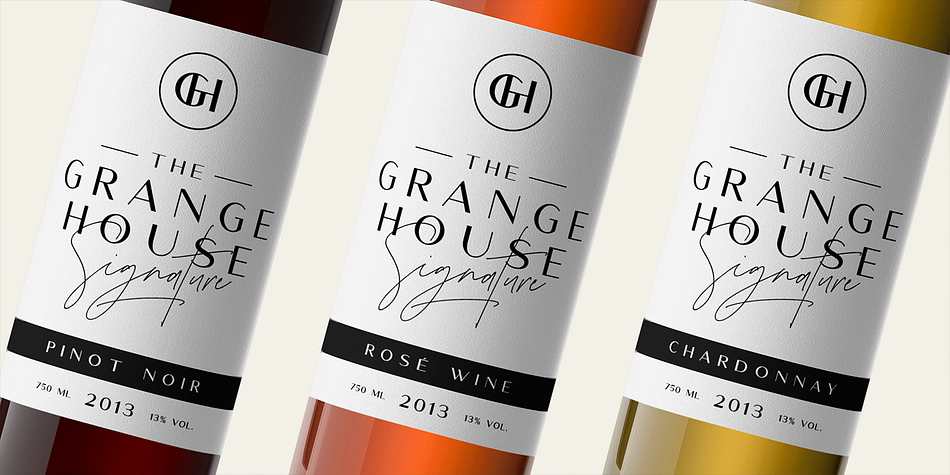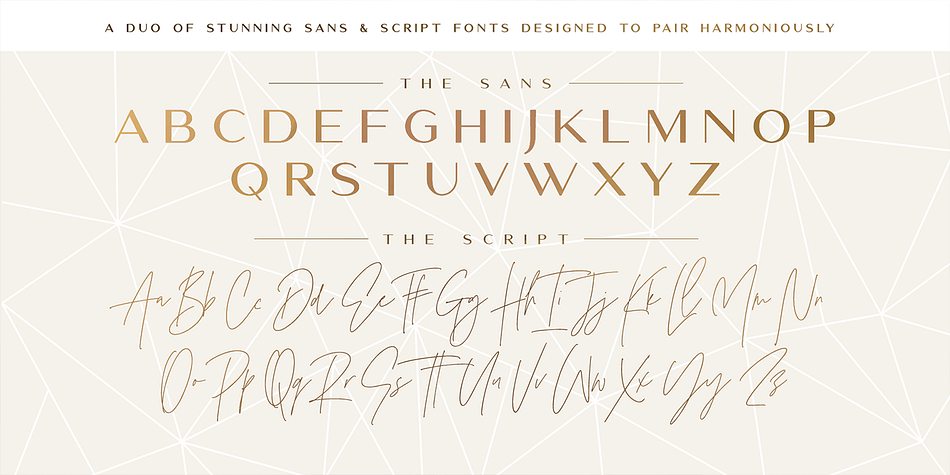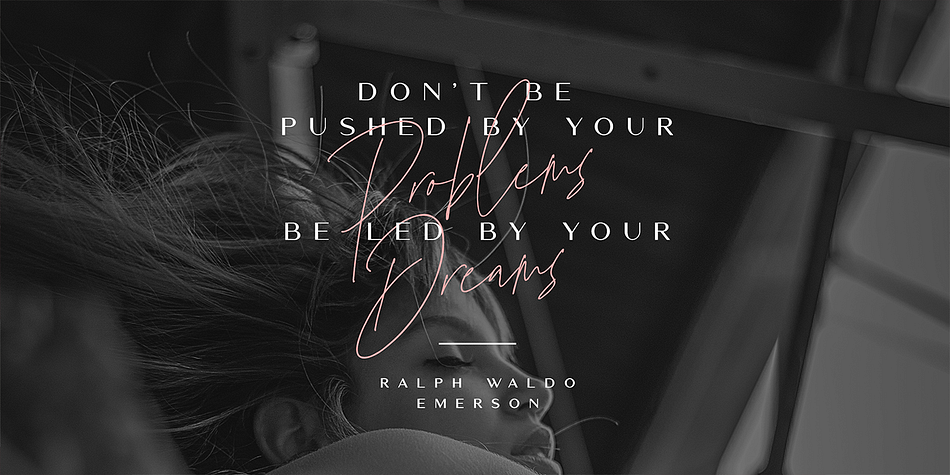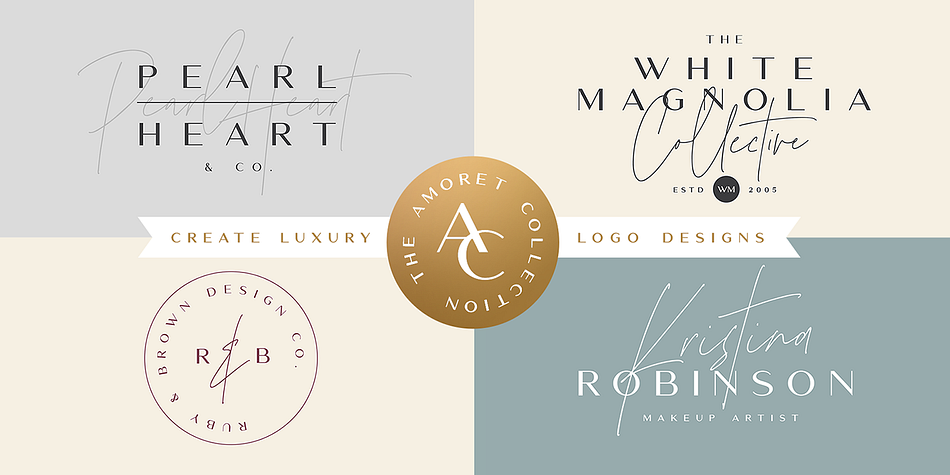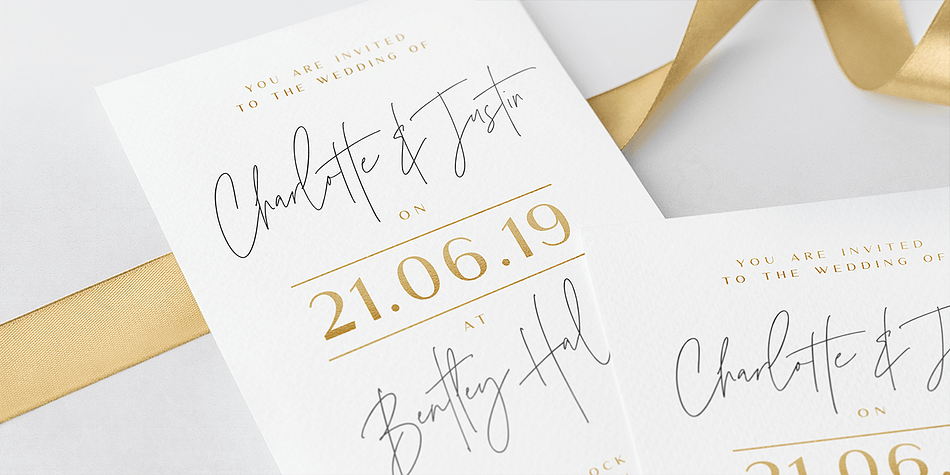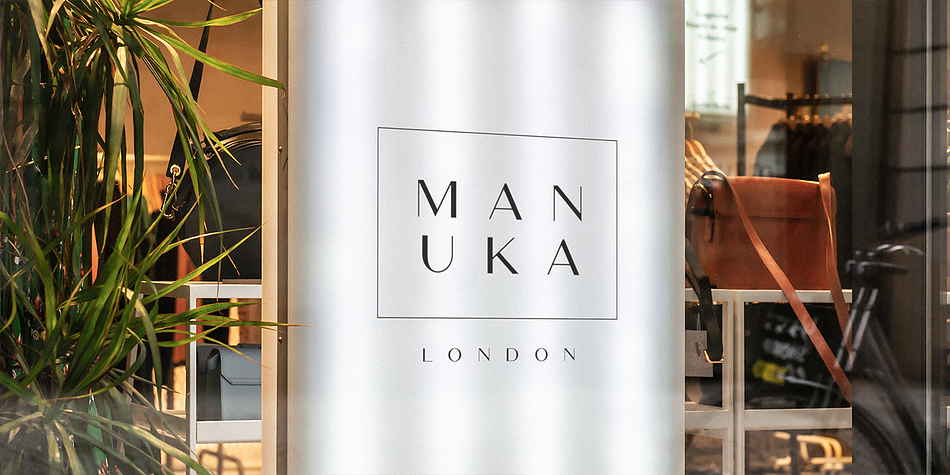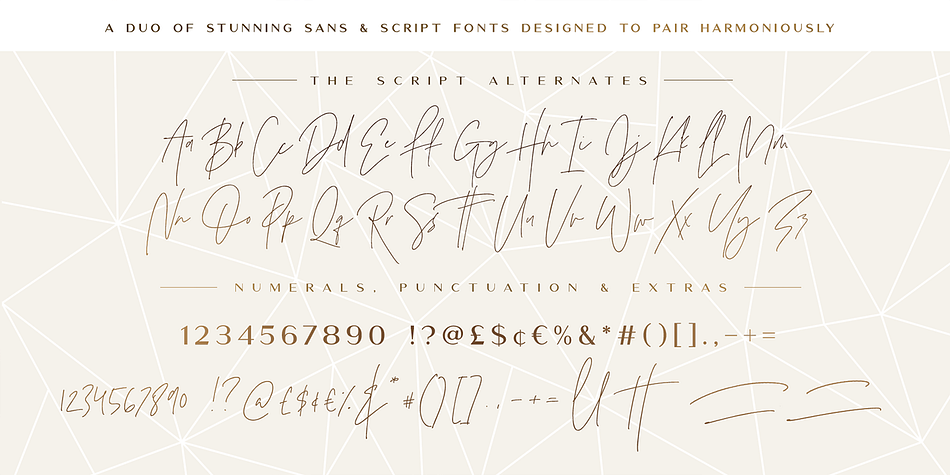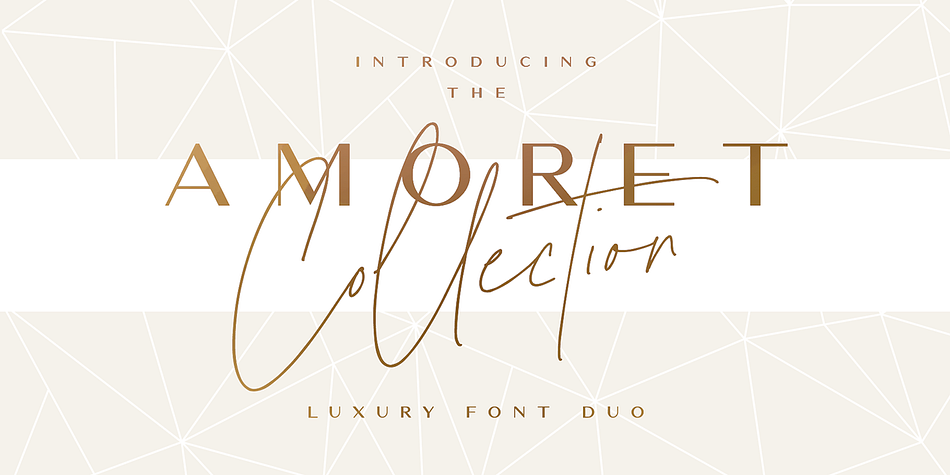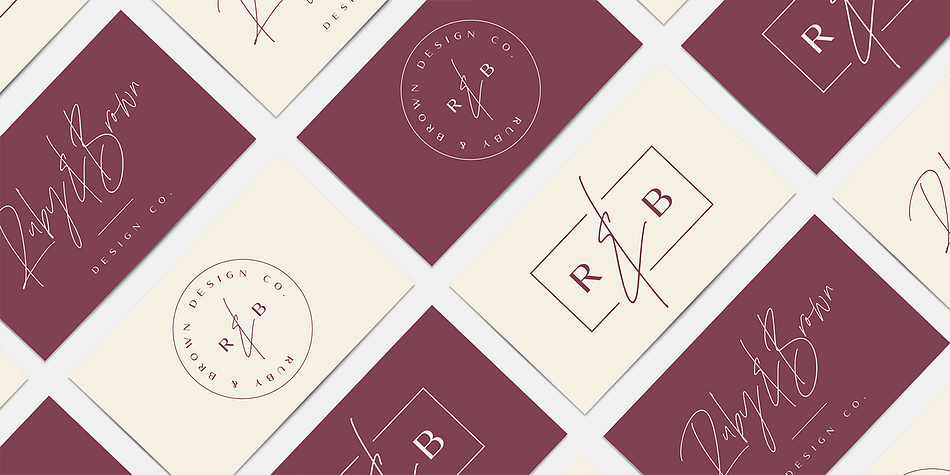
Designed by Sam Parrett, The Amoret Collection is a display sans, modern calligraphy and script font family. This typeface has three styles and was published by Set Sail Studios.
Introducing the Amoret Collection; A stunning pair of luxury script and sans fonts, designed to contrast & compliment each other with elegant beauty and contemporary style. The Amoret Collection also includes a set of 12 editable logo templates, each one uniquely combining the two Amoret fonts to create striking, modern logo designs for you to edit and use as your own.
Amoret Sans • A classy, high contrast sans font containing uppercase characters only, numerals and a large range of punctuation. Creates a perfect pairing contrast with the Amoret Script fonts.
Amoret Script • A thin and elegant script font with exaggerated strokes and a loose flow. Contains upper & lowercase characters, numerals and a large range of punctuation.
Amoret Script Alt • This is a second version of Amoret Script, with a completely new set of upper & lowercase characters. If you wanted to avoid letters looking the same each time to recreate a custom-made style, or try a different word shape, simply switch to this font for an additional layout option. Amoret Script Alt also contains 4 swashes assigned to the [ ] { } keys.
Styles | Display Sans, Modern Calligraphy, Script |